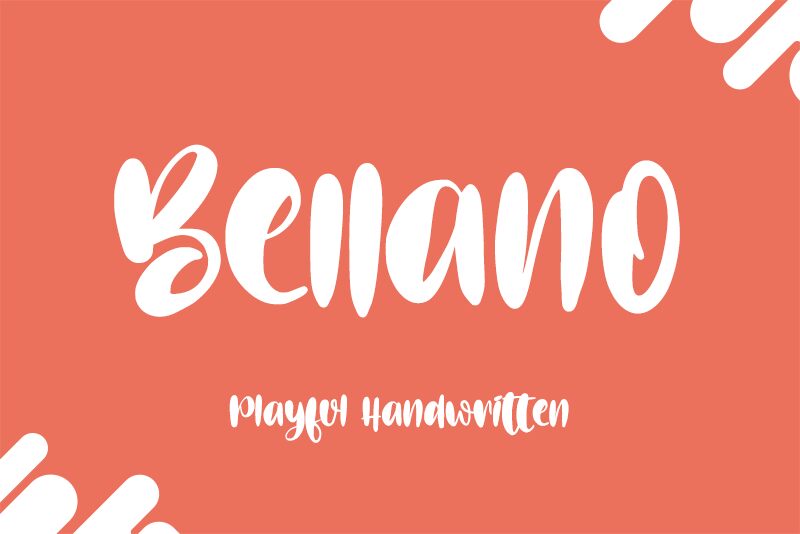
Bellano, designed by the talented team at Letterara, is a brush font that exudes charm with every stroke. Its extra-bold, semi-condensed style captures the spontaneous energy of paintbrush lettering while maintaining a sweet and delicate flow.
Perfectly balanced in weight and variation, Bellano brings a personal touch to creative projects ranging from eye-catching branding to heartfelt invitations. This versatile font dances between casual elegance and artistic flair, making it an ideal choice for those seeking to infuse their work with both personality and sophistication.